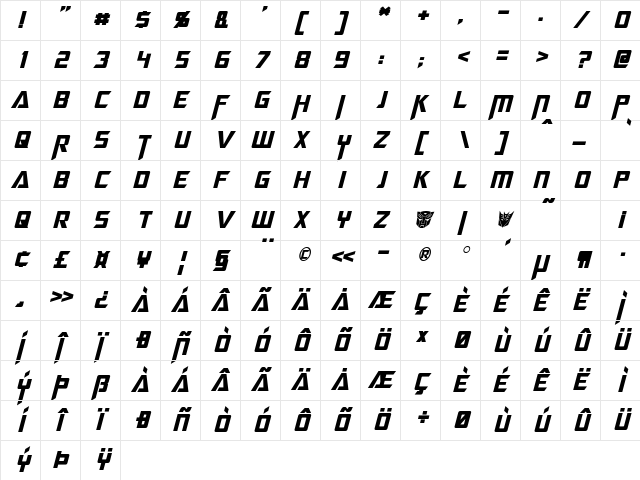
Megatron Italic
Foundry: Neale Davidson
Designer: Neale Davidson
Design Context for Megatron
Megatron is a composed and adaptable typeface that performs quietly and consistently across a wide range of design contexts. The slanted form adds forward momentum and visual energy.